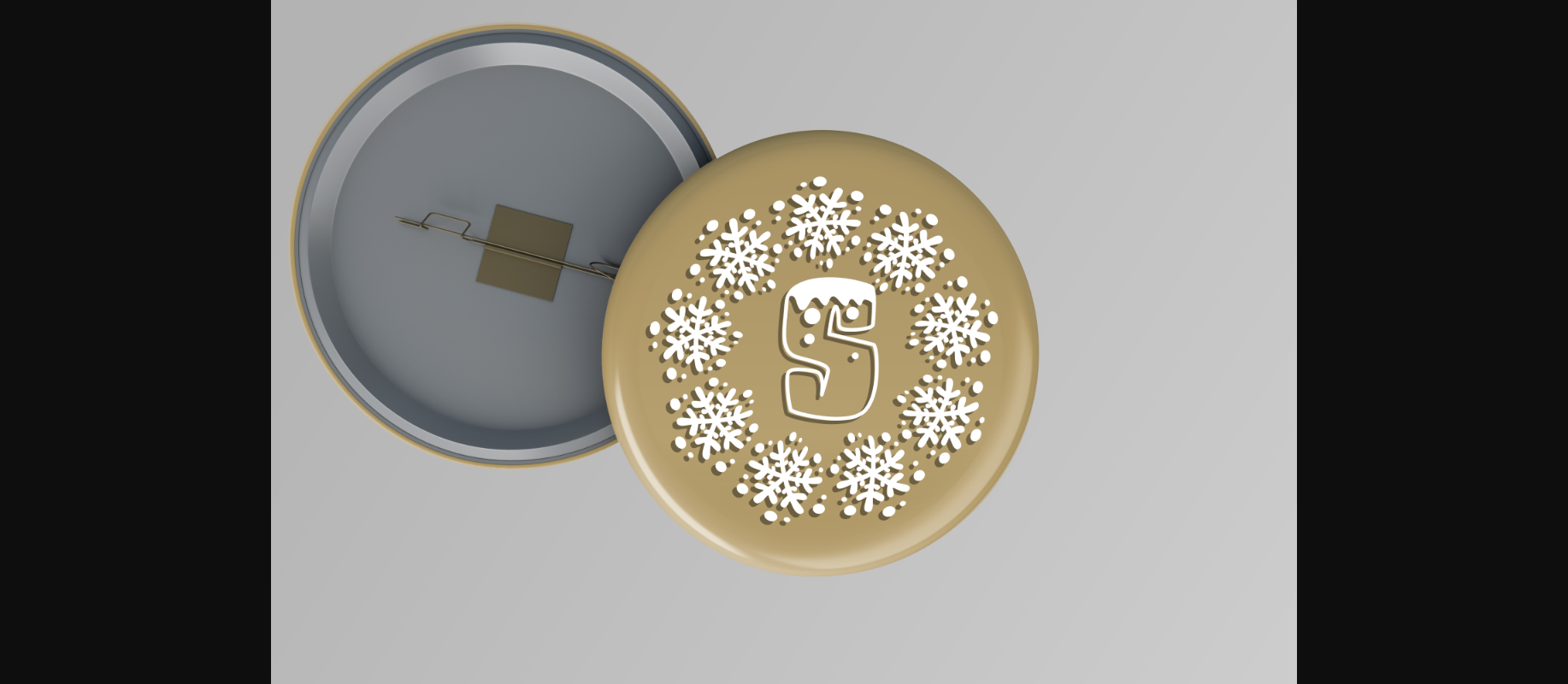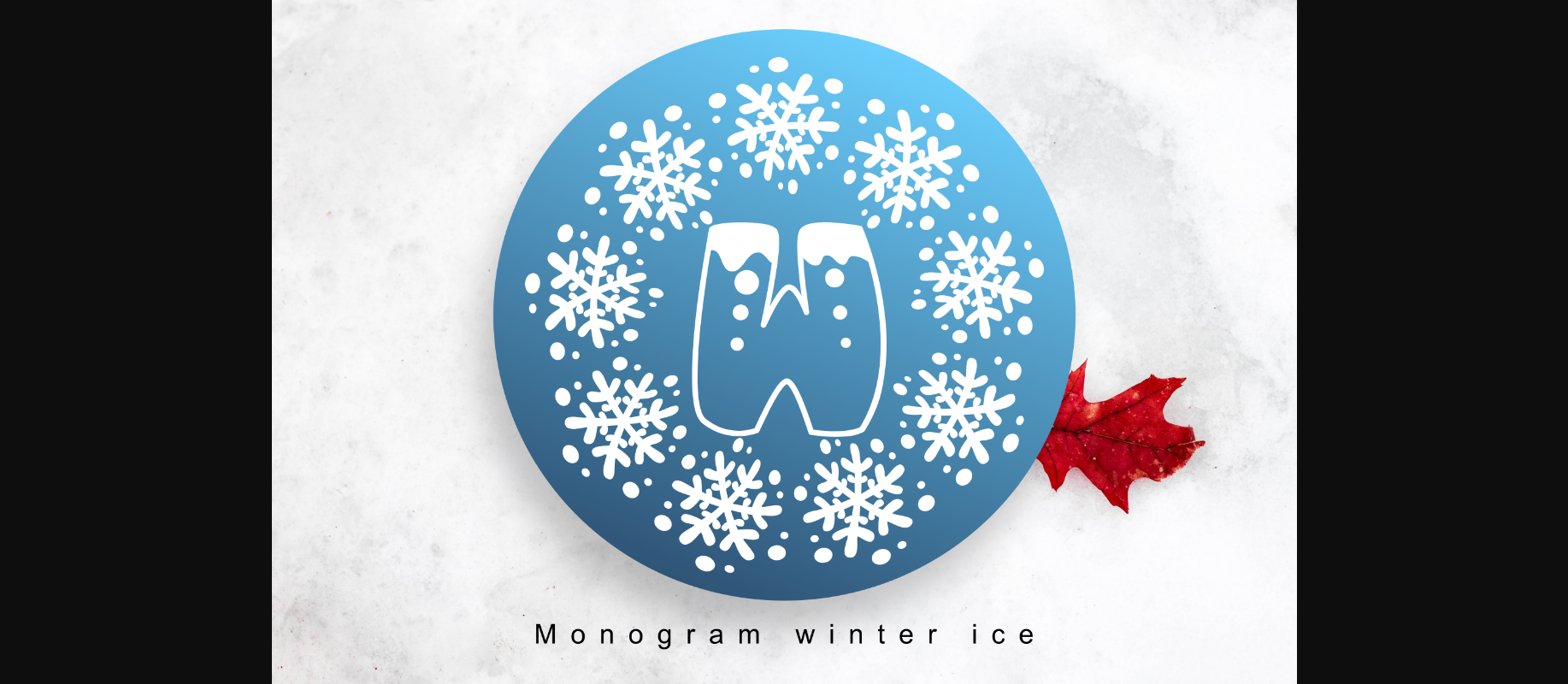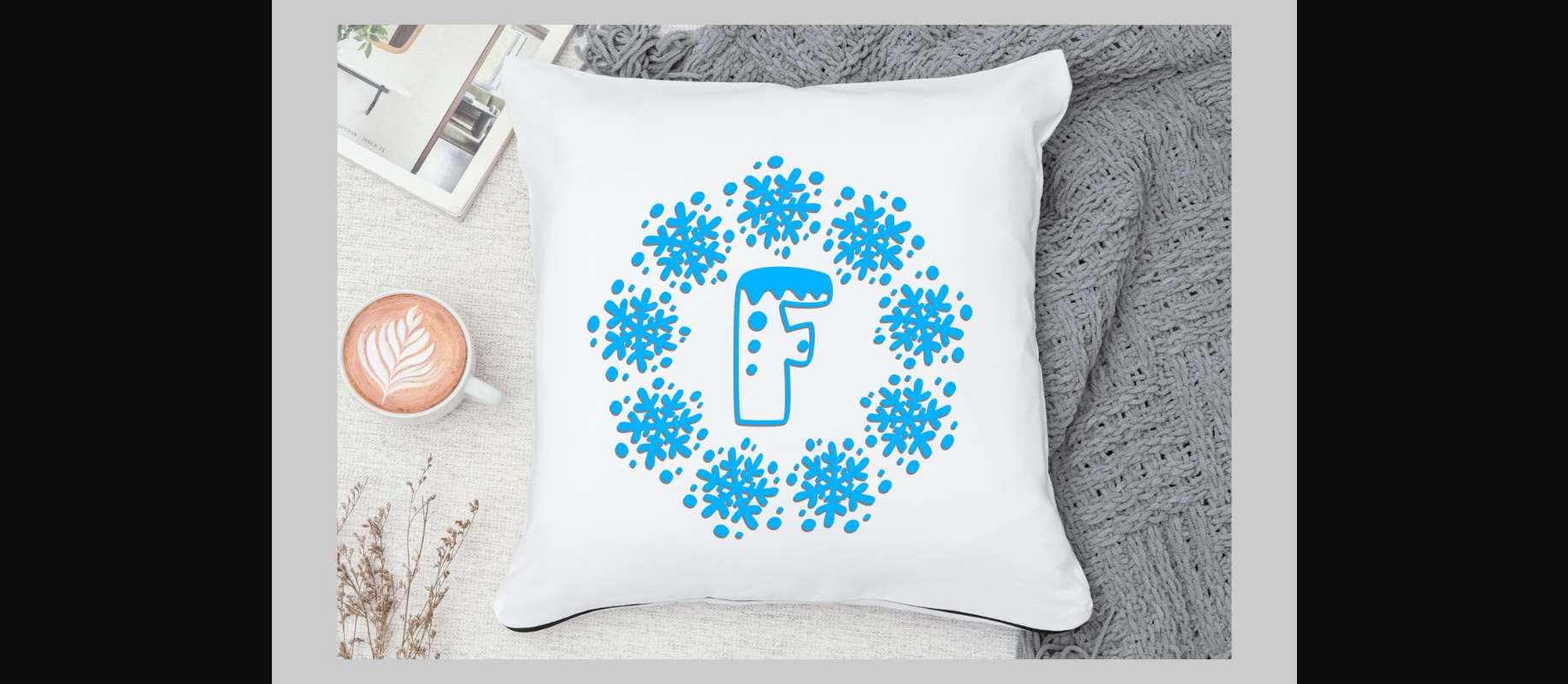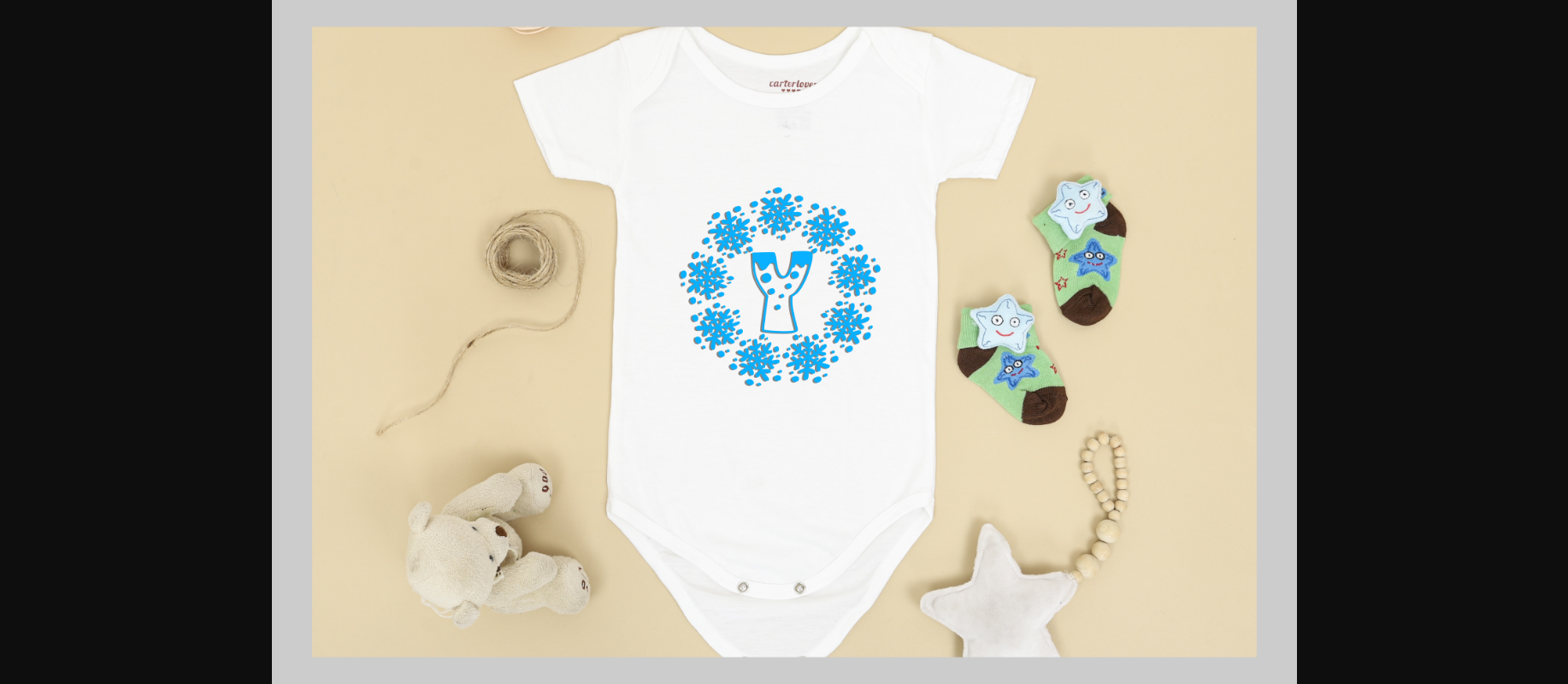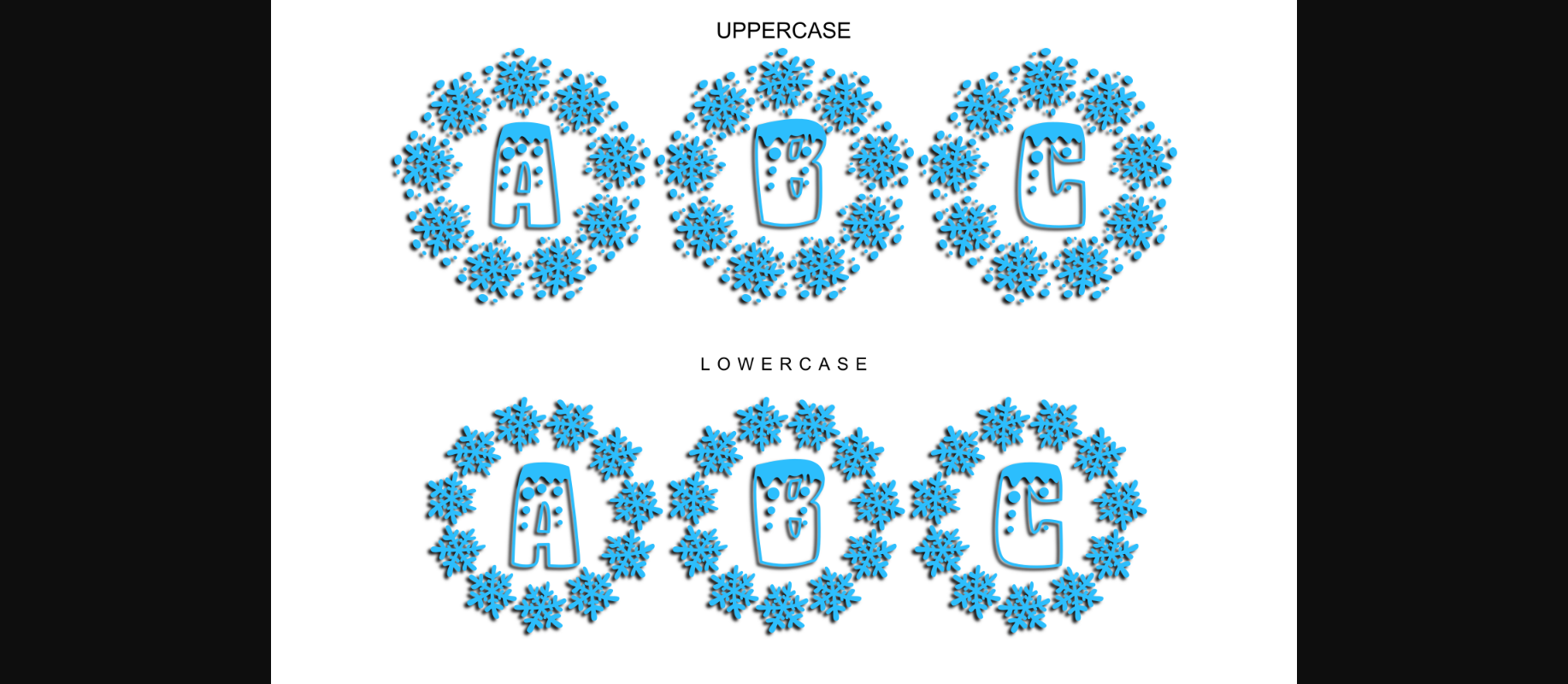
HomeDecorative FontsMonogram Winter Ice Font Decorative Fonts Monogram Winter Ice Font FacebookXPinterestWhatsApp 1 of 7 ... Monogram Winter Ice Font Poster 2... Monogram Winter Ice Font Poster 3... Monogram Winter Ice Font Poster 4... Monogram Winter Ice Font Poster 5... Monogram Winter Ice Font Poster 6... Monogram Winter Ice Font Poster 7... About Monogram Winter Ice Font Monogram Winter Ice is a highly detailed and sweet decorative font. Add this quirky-looking font to each of your children projects or favorite design ideas, and you will be astounded by the outcome. DOWNLOAD NOW People also explored Stare-tic Font Homeward Bound Ink Scale Font Note Books Whitehall JNL Font Garden House Good Morning Font LandryGothic Antonio Font 343 0 TagsMonogram Winter Ice Font Previous articleChristmas Daisy Monogram FontNext articleWhite Christmas Monogram Font LEAVE A REPLY Cancel reply Comment: Please enter your comment! Name:* Please enter your name here Email:* You have entered an incorrect email address! Please enter your email address here Website: Save my name, email, and website in this browser for the next time I comment. Personal Use Free Moon Light Personal Use Free Read more about this font Relic Island 2 Personal Use Free Read more about this font Densmore Personal Use Free Read more about this font Sellena Brush Font Personal Use Free Read more about this font BLOG Free vs Paid Fonts: Why Investing in Premium Fonts Is Worth It Free vs Paid Fonts: Why Premium Fonts Are Worth It in 2025 The debate of free vs paid fonts continues in the design world. While... Where to Buy American Fonts Online in 2024 Best Fonts for T-Shirt Design – Top 2025 Picks Transform Your Website: Elevate Your Typography with 7 Best Web Font Generators